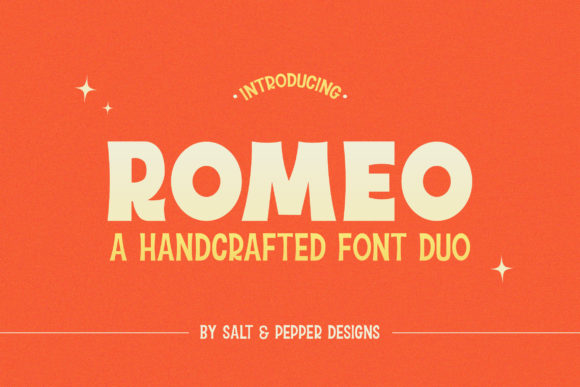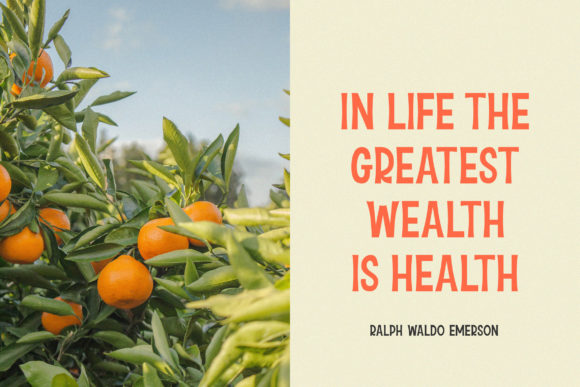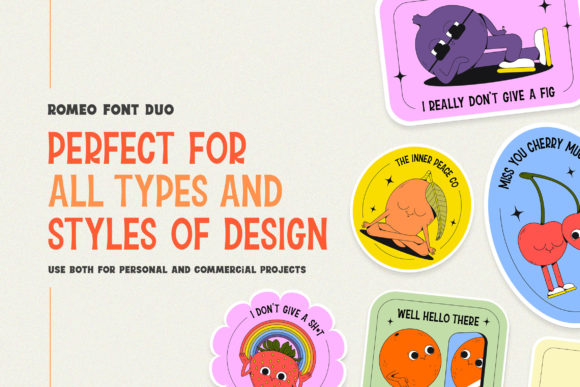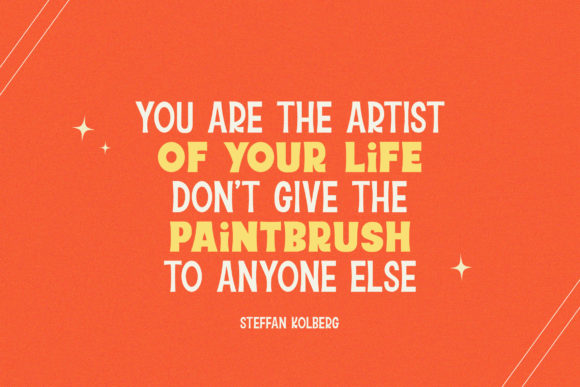
Romeo Duo Font
About the Romeo Duo Font
Experience the unique personality of Romeo Duo Font, a font designed for impact. Romeo Duo is a cool and vintage styled display font. It is perfect for any branding project such as logos, t-shirt printing, creative products, and more. It will look extraordinary in a variety of contexts.
Romeo Duo’s strong vintage styling makes it ideal for headlines, posters, and short impactful branding elements. It excels in creating a retro or nostalgic feel, perfect for projects emphasizing a classic, yet slightly rebellious aesthetic. Avoid using it for body text or lengthy passages; its highly stylized forms are not legible at smaller sizes.
Consider pairing Romeo Duo with a clean sans-serif like Montserrat for a balanced contrast, or a more geometric sans-serif such as Futura for a modern, yet vintage feel. A subtle script font could also add a touch of elegance to designs using Romeo Duo as a headline.
The overall personality is bold and slightly playful, but with an underlying vintage sophistication. It suits brands that aim for a retro-inspired yet contemporary image, perhaps in fashion, music, or craft-related industries.
Romeo Duo Font Usage Examples
Romeo Duo Font Example